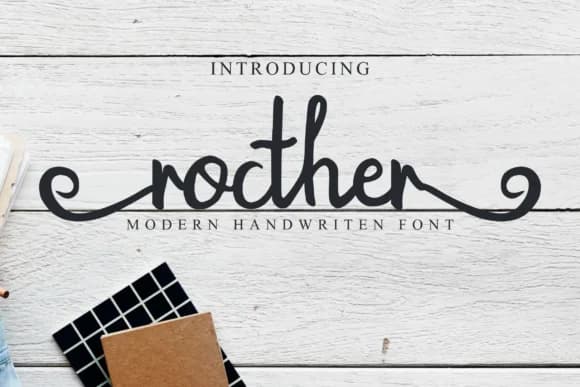
1 / 6About Rocther Script Font
When you're designing invitation suites that need genuine character, Rocther Script (created by pandanwangi) brings the softness of a brush pen stroke directly to your layouts. The medium weight of this brush script adapts equally well to large display sizes or smaller text applications, making it flexible across many different project types. Wedding invitations, engagement announcements, and formal save-the-dates all gain that handwritten warmth that standard digital fonts simply cannot replicate. Brushed strokes like these feel personal and deliberate without becoming ornamental or difficult to read.
Rocther adds character to boutique product packaging, from candle box labels to handmade soap packaging to artisan food labels for small-batch goods. It works beautifully for social media graphics from creative studios and small design businesses, as well as custom menu cards for intimate restaurants and specialty cafes. Designers often reach for it when creating photo watermarks or personal branding marks where authentic handwritten character matters most. The letter forms maintain consistent stroke weight throughout the entire typeface, which means it renders cleanly and clearly whether you're working at display size or smaller point sizes.
Rocther Script Font is a script font that shines as a display or heading face. Pair it with a clean sans-serif or serif font for body text β the contrast creates a clear hierarchy while the two styles stay balanced and easy to read.
Rocther Script Font